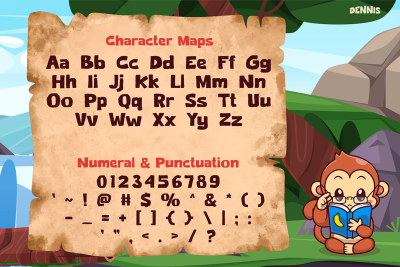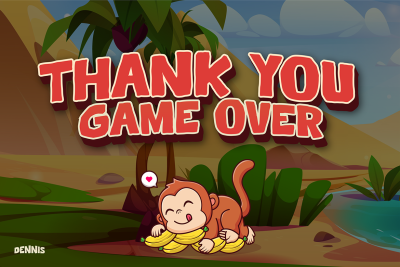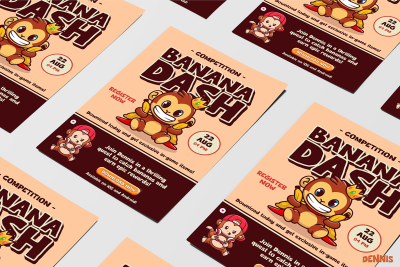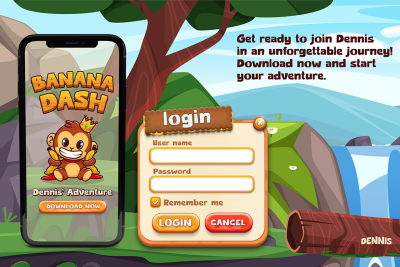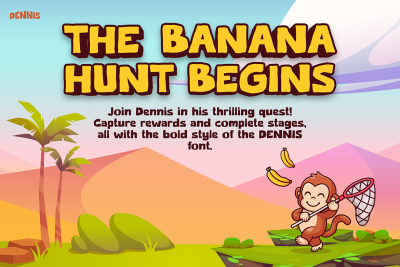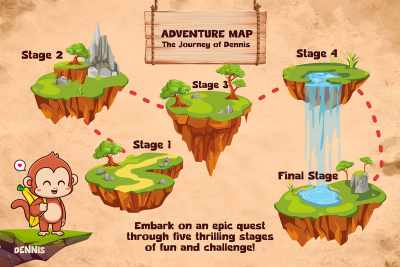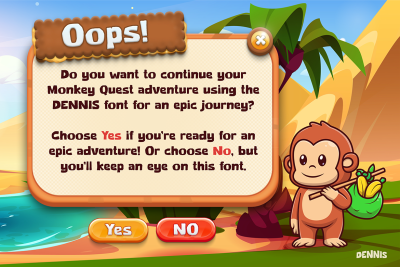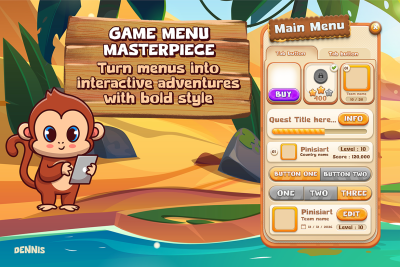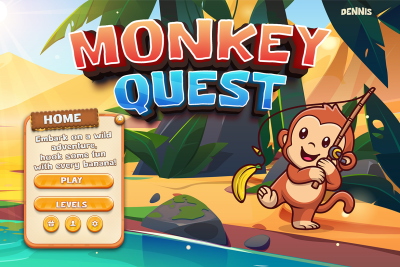
Gaming Font Dennis is a bold and vibrant typeface that brings energy and excitement to all your creative projects. Its playful yet impactful design ensures your text grabs attention instantly, making it perfect for anyone looking to stand out. Moreover, the chunky and dynamic lettering is crafted to complement colorful backdrops, enhancing your visuals effortlessly.
Not only does this font capture the thrill of adventure, but it also strikes the perfect balance between creativity and readability. Whether you are designing gaming logos, social media graphics, or crafting brand identities, this font provides versatility and charm. Furthermore, its approachable and cheerful aesthetic appeals to audiences of all ages.
By choosing Gaming Font Dennis, you gain more than just a fontโyou unlock a tool that can elevate your designs with personality and flair. As a result, your projects leave a lasting impression while maintaining clarity and professionalism.
Ideal Applications and Market Appeal
Gaming Font Dennis is ideal for projects that require a bold and adventurous personality. For example, it works exceptionally well for gaming logos, YouTube thumbnails, and animated content. Additionally, the fontโs lively and playful style makes it an excellent choice for childrenโs book titles and family-friendly designs. Therefore, it becomes a reliable asset for projects aimed at capturing attention in a crowded space.
In marketing and branding, Gaming Font Dennis excels due to its strong, modern structure. For instance, marketers can use it for eye-catching advertisements, product packaging, or promotional visuals. Furthermore, its versatility allows it to adapt seamlessly to professional campaigns while maintaining a fun and approachable tone. As a result, this font appeals to both casual and professional designers.
Because of its adaptability, this font remains a favorite among creatives. While it is ideal for casual gaming projects, it also performs exceptionally in professional settings. Thus, designers can rely on this font to cater to various audiences and ensure their work remains memorable.
Why Choose Gaming Font Dennis?
Gaming Font Dennis stands out for its ability to combine style with functionality. For instance, it brings vibrancy and energy to your designs without sacrificing clarity. Moreover, its bold appearance ensures text remains legible, even in visually busy compositions. Because of this, your projects achieve both visual impact and accessibility.
Whether you are designing for digital platforms, launching a new product, or enhancing social media visuals, Gaming Font Dennis ensures your work remains polished and engaging. Additionally, its unique charm and adaptability make it an essential tool for creative storytellers and marketers. Ultimately, this font allows you to express creativity while leaving a lasting impression on your audience.